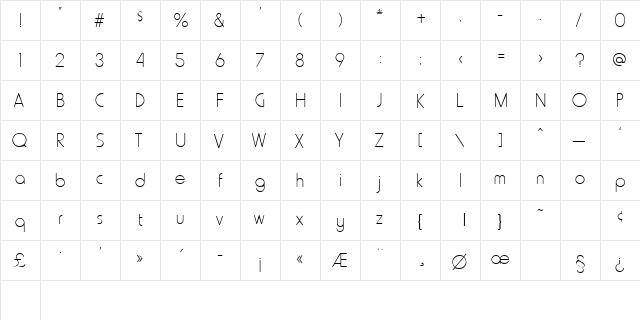
HowardThin Regular
Design Context for HowardThin Typeface
HowardThin takes a measured approach to typography — its balanced proportions and neutral character make it a reliable workhorse for both digital and print work. Its slender proportions lend an understated elegance to any composition.